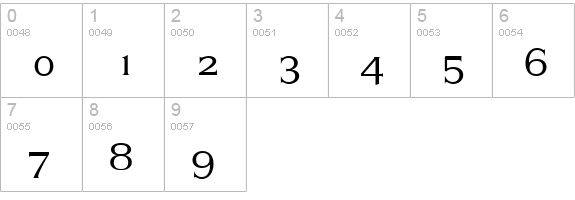
SilveradoLightOldStyleFigures Font Details
The SilveradoLightOldStyleFigures font is a timeless and classic typeface that exudes elegance and sophistication. With its sleek and slender letterforms, this font captures the essence of old-style figures, while still maintaining a modern and contemporary appeal. Each character in the SilveradoLightOldStyleFigures font has been meticulously designed to create a harmonious balance between its curves and straight lines. The result is a font that is both pleasing to the eye and easy to read, making it perfect for a wide range of design projects. Whether you're creating a logo, designing a website, or crafting a print advertisement, the SilveradoLightOldStyleFigures font will add a touch of charm and refinement to your work. Its versatility allows it to be used in both headline and body text, giving you the flexibility to experiment and create stunning compositions. What sets the SilveradoLightOldStyleFigures font apart is that it is freely available to download at FontsMarket.com. This means that you can easily access and utilize this beautiful typeface without any cost. Now, you can enhance your design projects with a font that not only looks incredible but also fits within your budget. So, whether you're a professional designer or a hobbyist, the SilveradoLightOldStyleFigures font is a must-have in your font library. Its timeless appeal, effortless legibility, and free availability make it a valuable asset that will elevate your designs to new heights. Download it today and experience the beauty of this remarkable font for yourself.